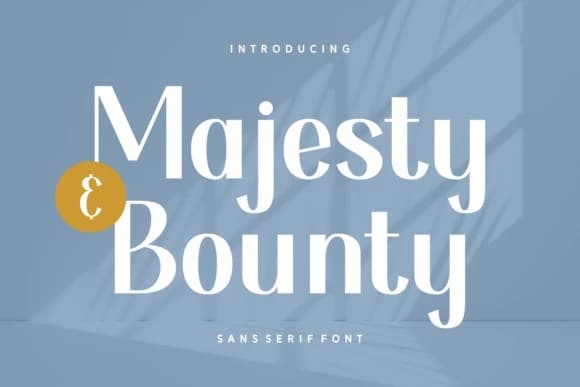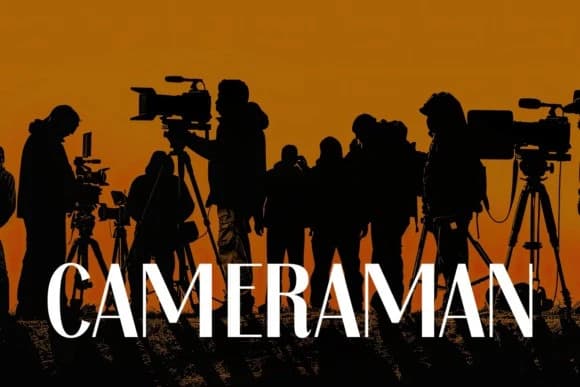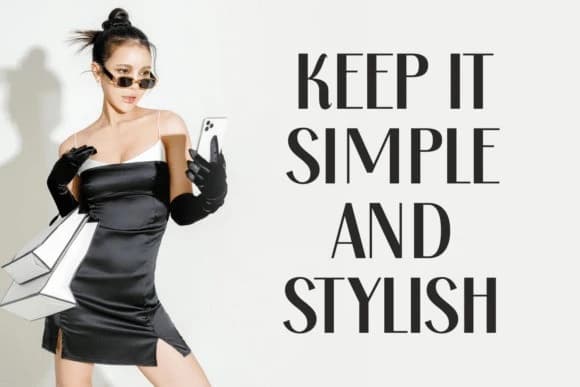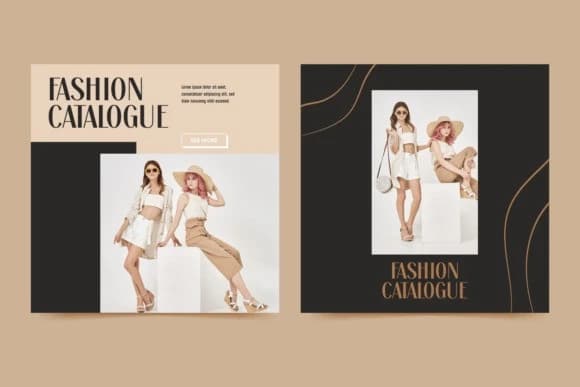
Majesty And Bounty Font
Majesty And Bounty Font, an artful merge of sans serif and splashes of contemporary styles. Imagine this elegant font breathing life into your photography captions, adding a striking accent to your apparel line or playing the bold authentic voice on your book covers.